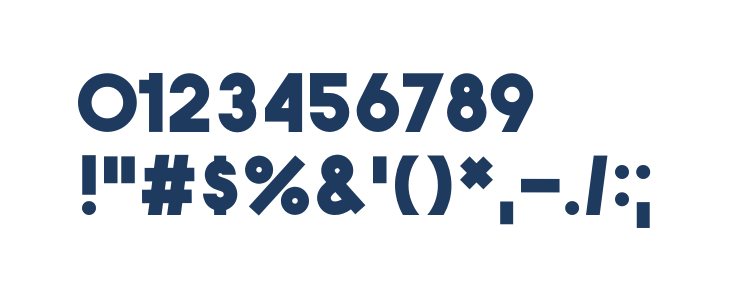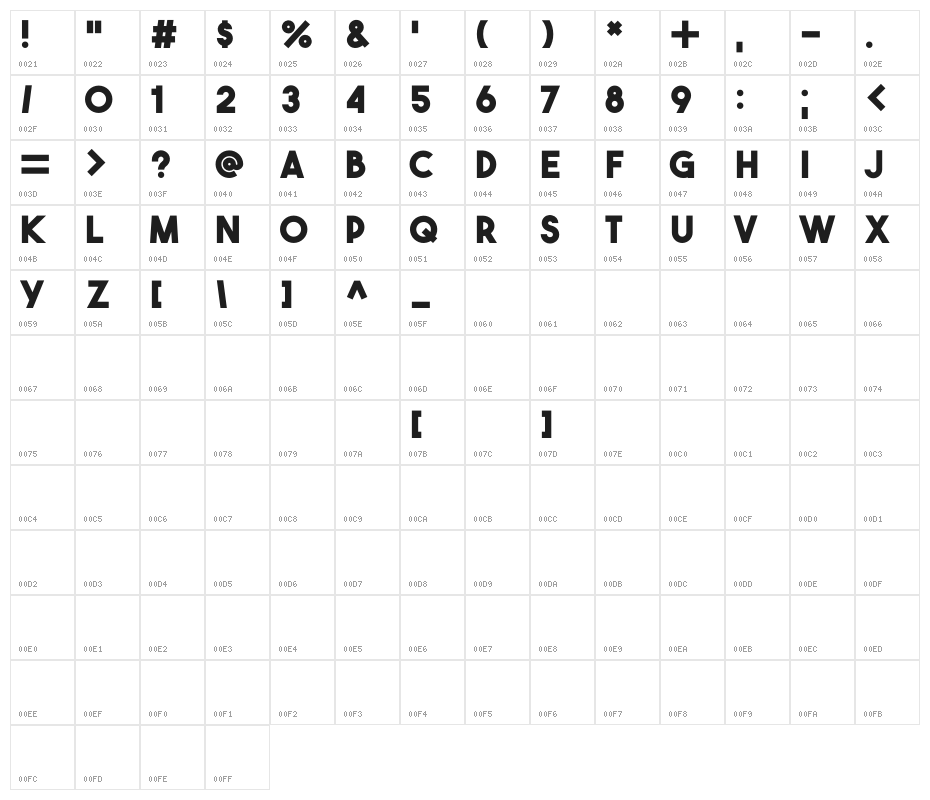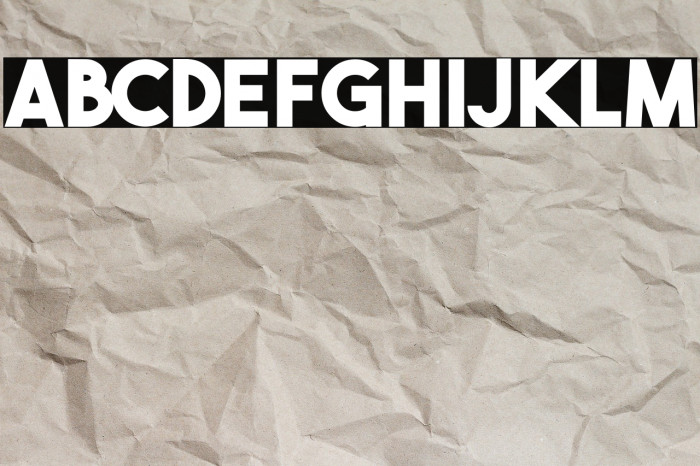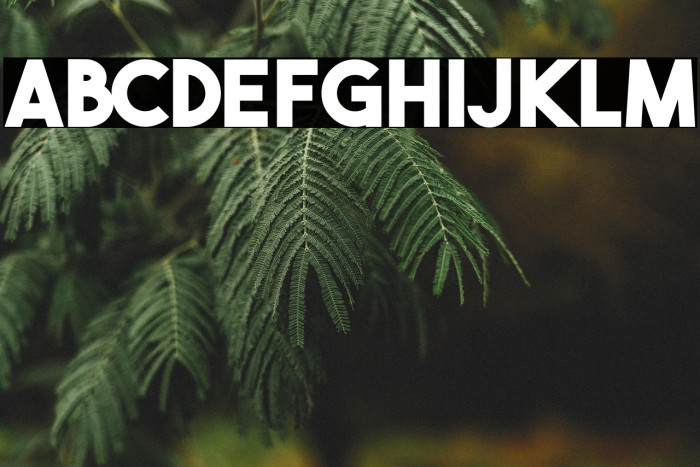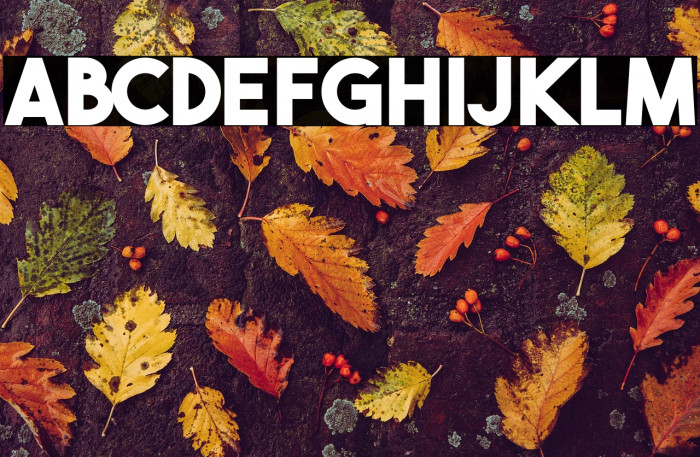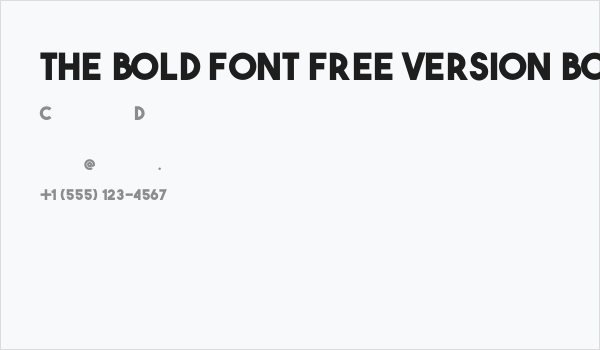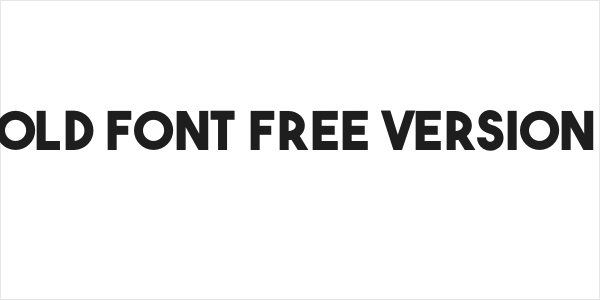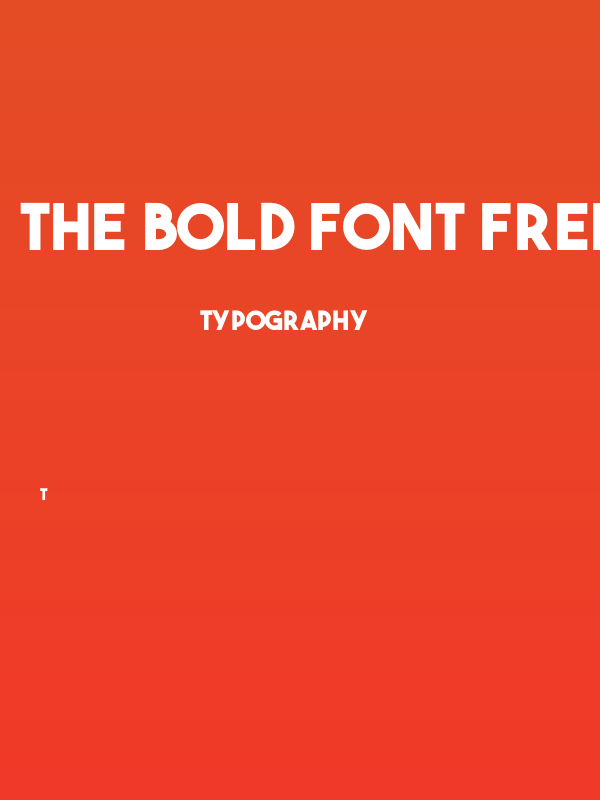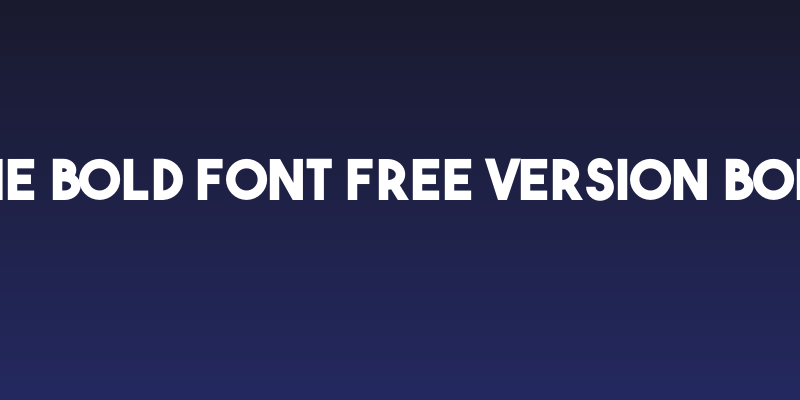
THE BOLD FONT FREE VERSION BOLD Font
THE BOLD FONT FREE VERSION BOLD Description
This font features a bold and impactful design, characterized by thick, uniform strokes that convey strength and confidence. The characters are well-defined with a modern aesthetic, making it suitable for attention-grabbing headlines and titles. Its geometric shapes and clean lines ensure readability while maintaining a strong visual presence. The font's uppercase and lowercase letters are consistent in style, providing a cohesive look across different text elements. The numerals and special characters are designed to match the boldness of the alphabet, ensuring a harmonious appearance in any design project.
HE BOLD FONT is designed to make bold statement designs and challenge the rules of traditional typography. Perfect for logos, headlines, and impactful branding. Upgrade to the Pro version with additional features: www.the-bold-font.com
| Proposed Projects | Ideal for branding, advertising, posters, and any project requiring a strong visual impact. |